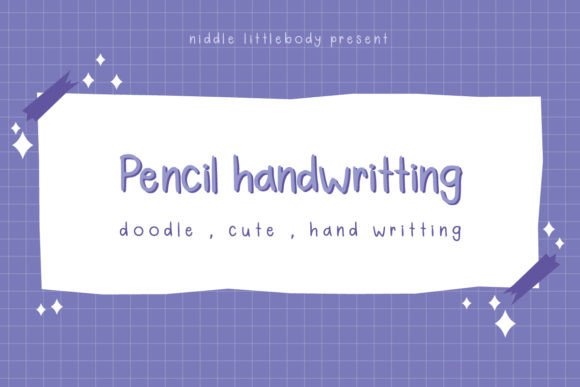
Prepare yourself to be captivated by Pencil Handwritting Font, an enchanting script font, meticulously crafted to bring a touch of joy and youthful charm to your designs. Immerse yourself in the world of handwritten elegance, where each letter dances with a carefree spirit, evoking a sense of playfulness and warmth. Allow your creativity to flourish as you explore endless possibilities with this delightful font.
Unleash your imagination and let Pencil Handwritting Font dance across your party invitations, transforming them into vibrant and joyous expressions of celebration. Picture the smiles on your guests' faces as they receive these thoughtfully designed invitations, eagerly anticipating the festivities to come. Or, let Pencil Handwritting Font grace your handmade cards, each one infused with a personal touch that speaks volumes. The possibilities are boundless, waiting for you to discover and bring to life.
With Pencil Handwritting Font, you'll embark on a creative journey, transforming your designs into captivating works of art. Its ability to effortlessly elevate the visual appeal of your projects will leave you spellbound. Whether you're designing logos, creating social media graphics, or crafting eye-catching marketing materials, Pencil Handwritting Font will effortlessly transform your ideas into captivating realities.
But it's not just the aesthetics that make Pencil Handwritting Font truly exceptional. It's the emotions it evokes, the connections it fosters, and the stories it tells. Every letter, every stroke, every curve is imbued with a sense of warmth and delight, inviting your audience to engage with your designs on a deeper level. Whether you're aiming to spread joy, express gratitude, or simply create a lasting impression, Pencil Handwritting Font will be your trusted companion, guiding you towards design excellence.
So, let Pencil Handwritting Font ignite your creative spark, transport you to a world of endless possibilities, and leave an enduring legacy of beauty and charm in your designs. Embrace the magic of handwritten allure and watch as your creations come alive with a touch of youthful exuberance and heartfelt emotion.